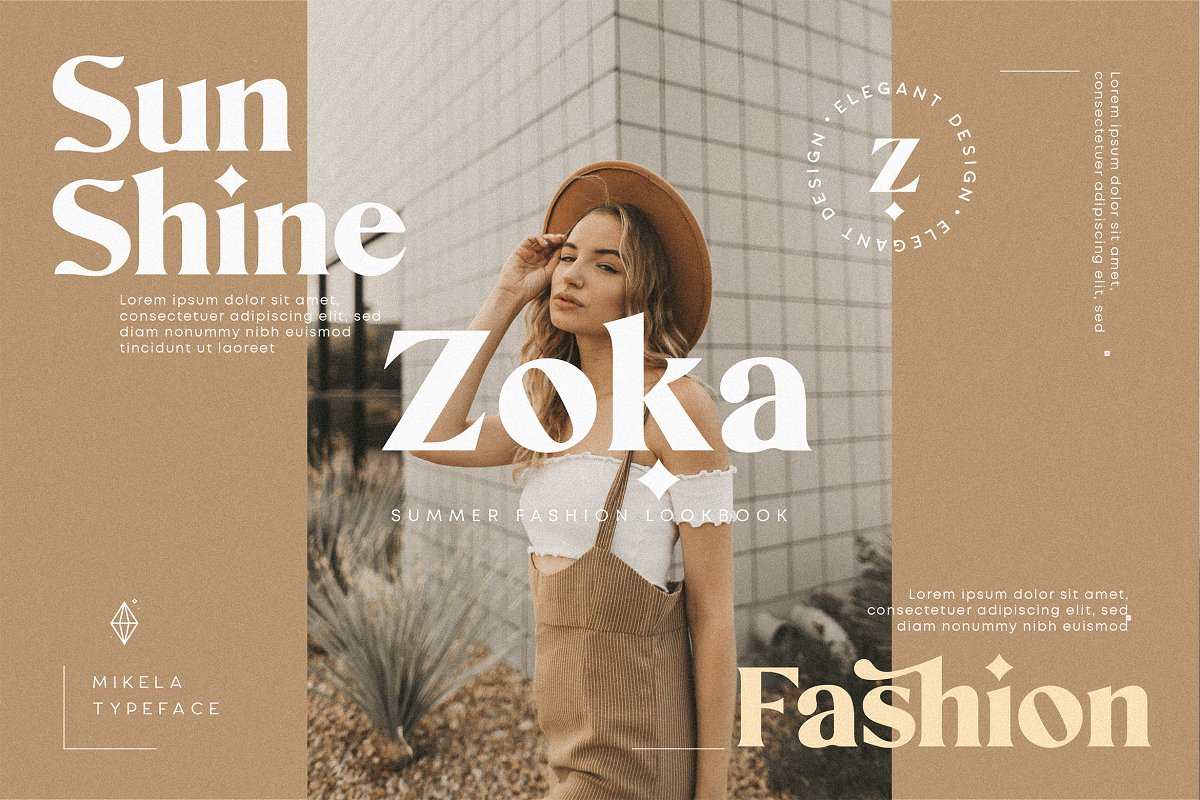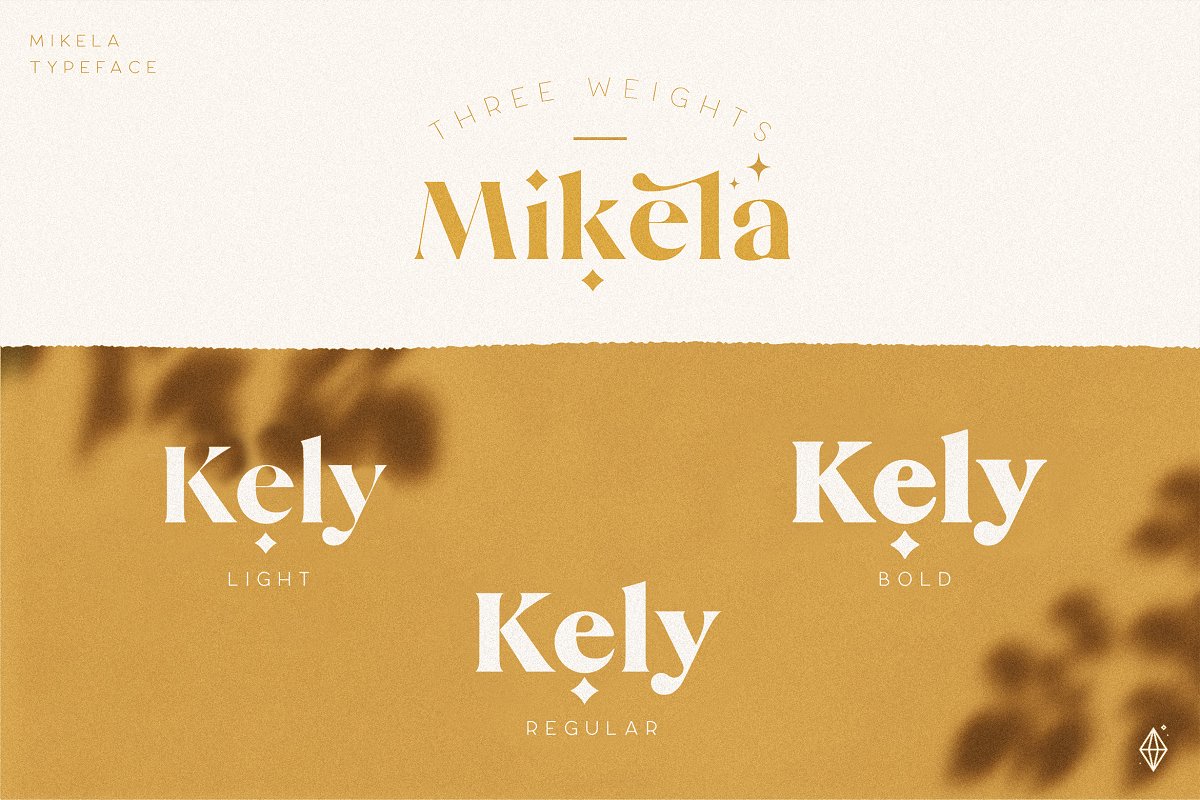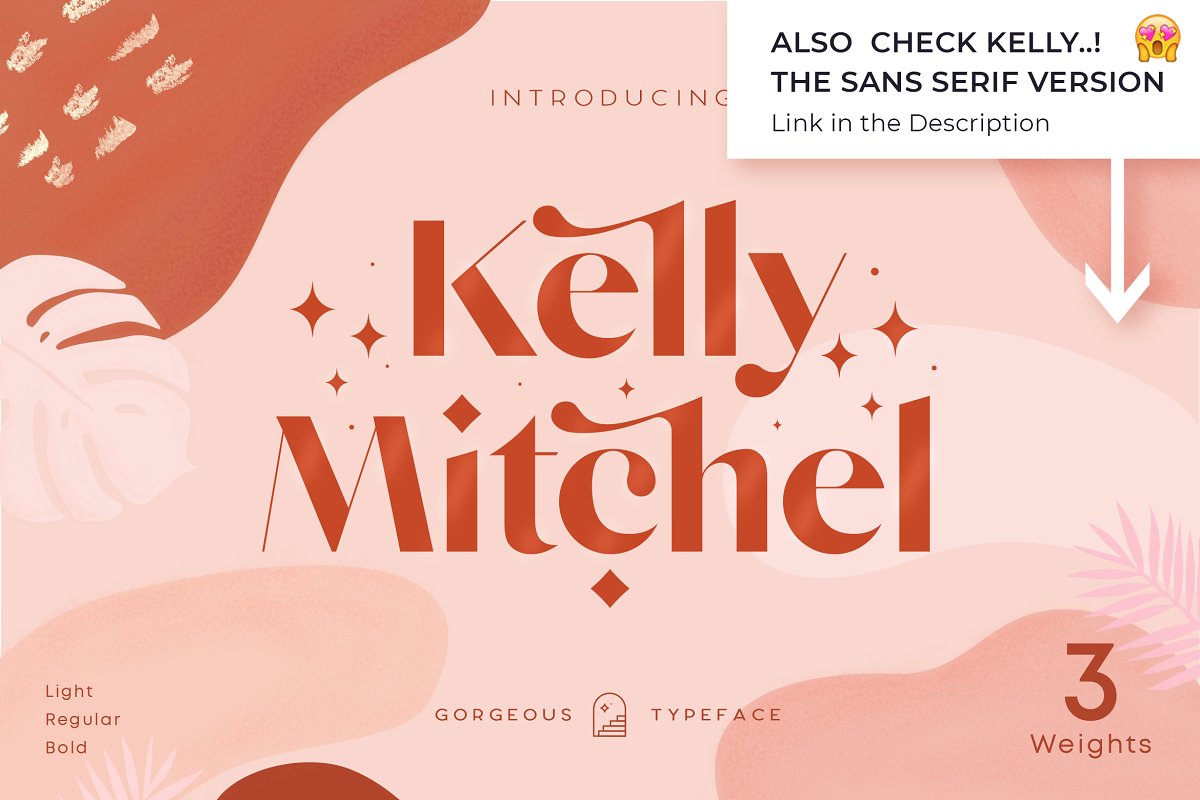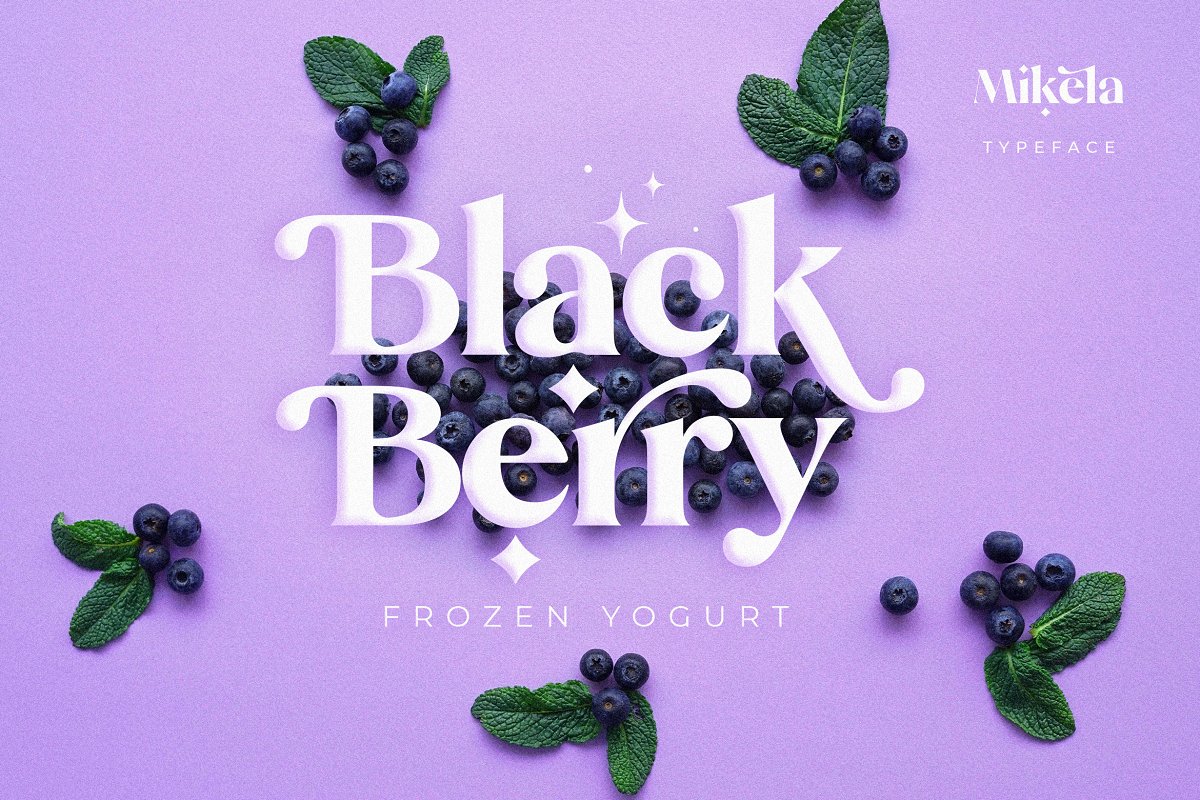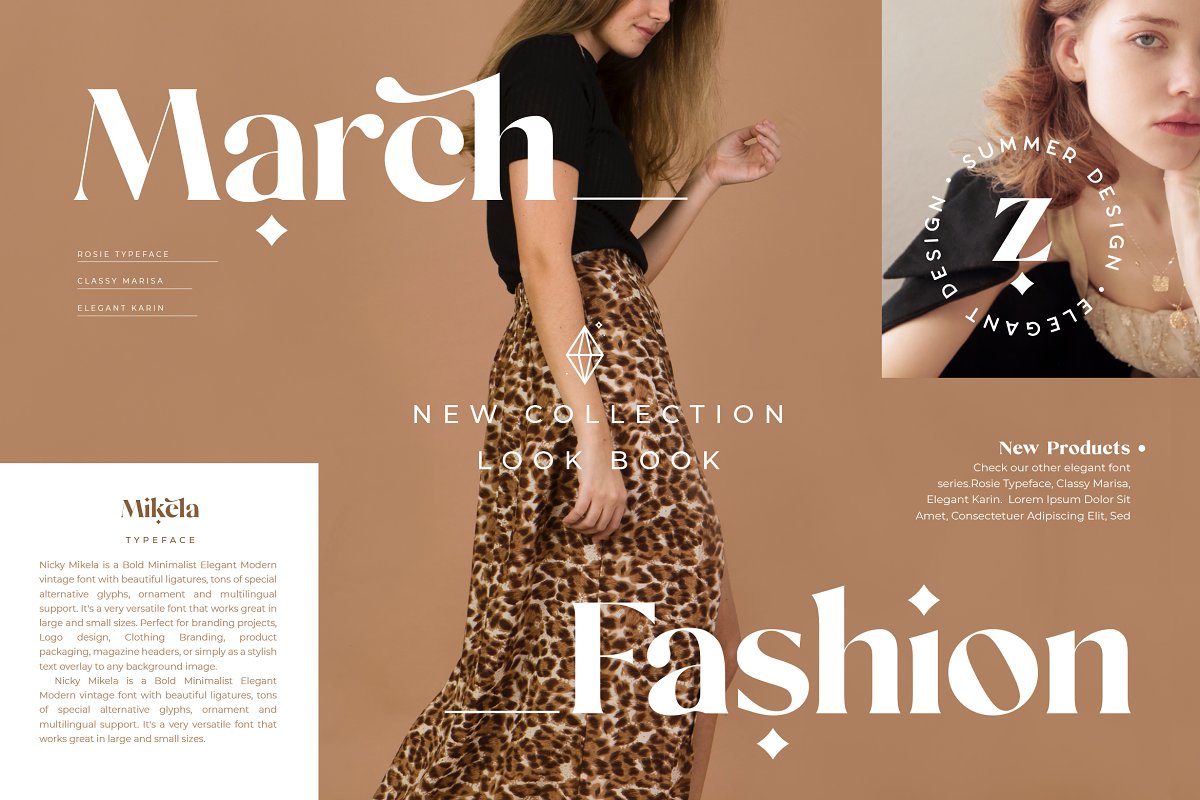
About the Mikela Gorgeous Typefaces Font
🤩💖👇 Also Check Out KELLY The sans serif version of Mikela font here !! ❤️🙌️https://crmrkt, com/DlPmE4💖👌 Also Check Out Our New Font Paris Lamore here!! ❤️🙌️https://crmrkt, com/J0A4W5Nicky Mikela is a Bold Minimalist Elegant Modern vintage font with beautiful ligatures, tons of special alternative glyphs, ornament and multilingual support, It’s a very versatile font that works great in large and small sizes